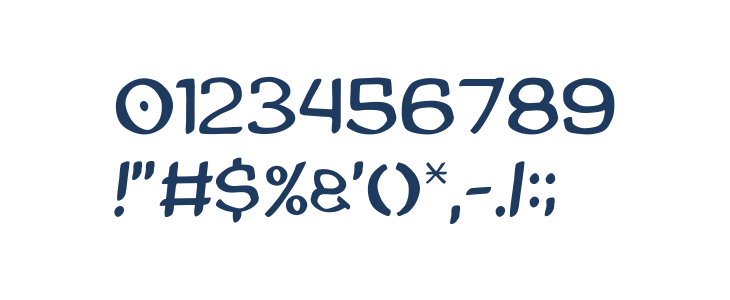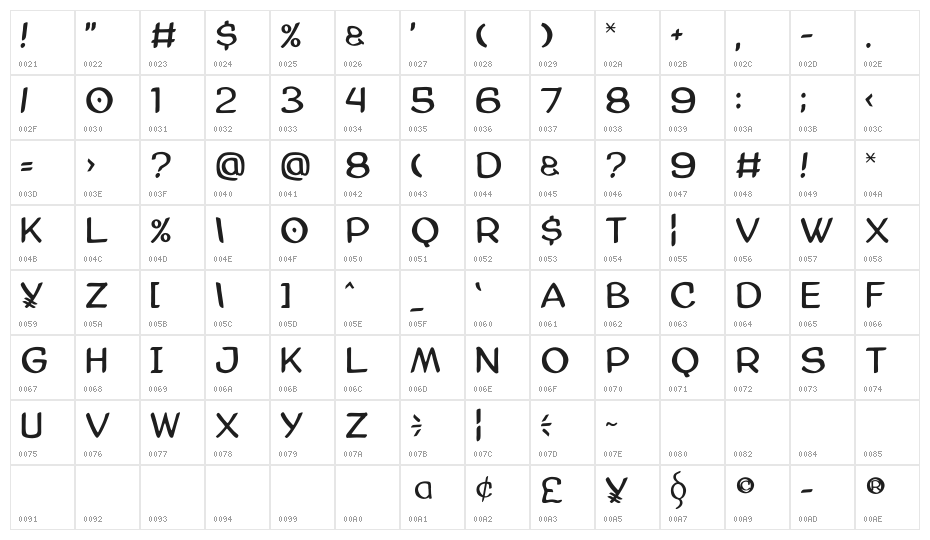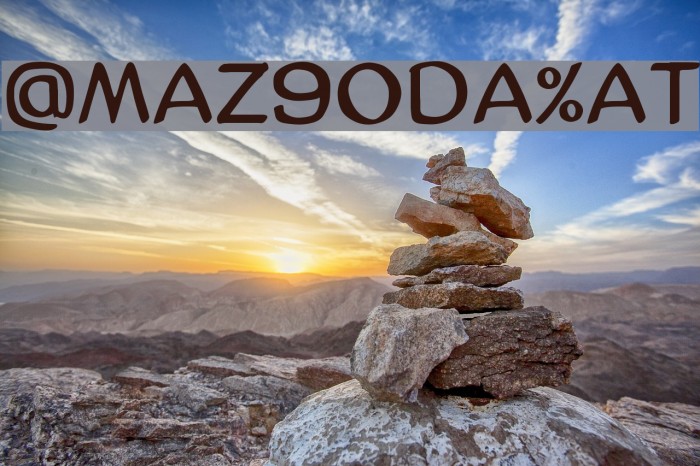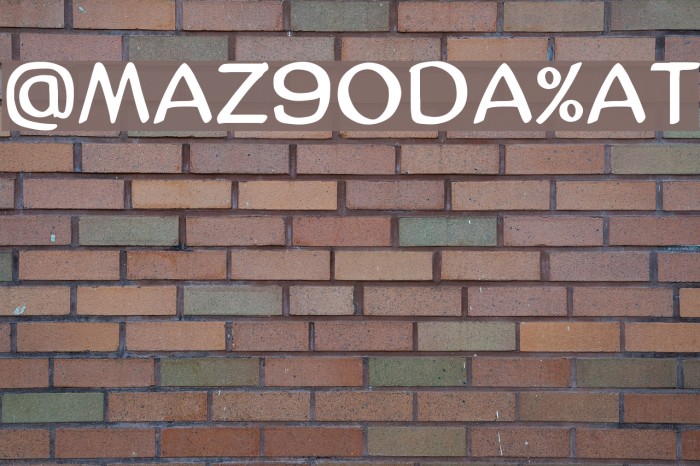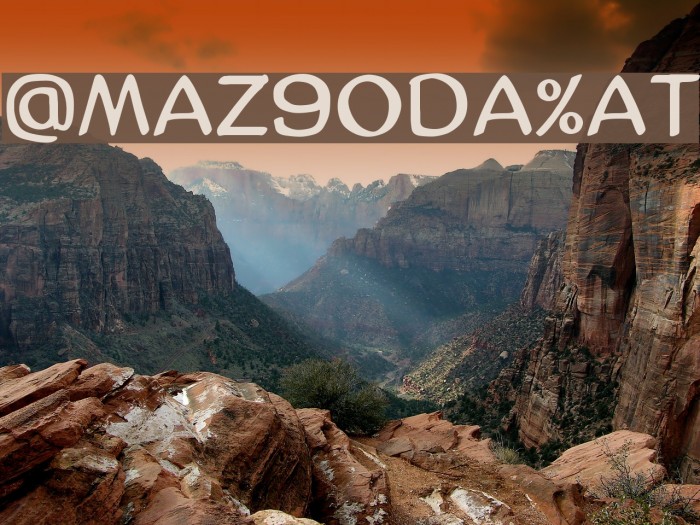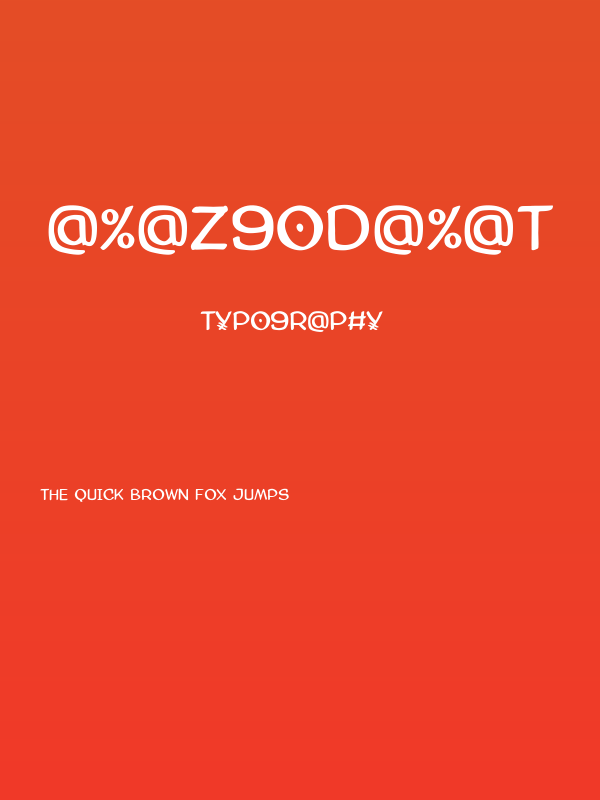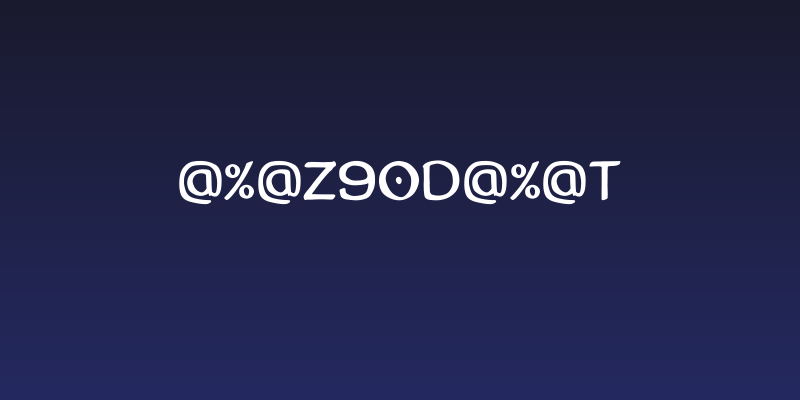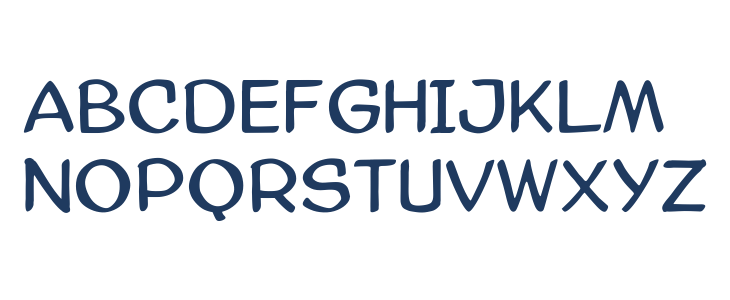
AmazGoDaMat Font
AmazGoDaMat Description
This font features a playful and rounded style, characterized by its bold and smooth curves. The letters are evenly spaced, with a consistent stroke width that gives it a friendly and approachable appearance. The uppercase and lowercase letters maintain a uniform height, while the numbers and special characters are designed to complement the overall aesthetic. The font's rounded edges and lack of sharp angles contribute to its informal and casual look, making it suitable for projects that require a touch of whimsy and creativity.
| Overall Style | Playful |
| Proposed Projects | Ideal for children's books, playful branding, casual invitations, and creative posters. |